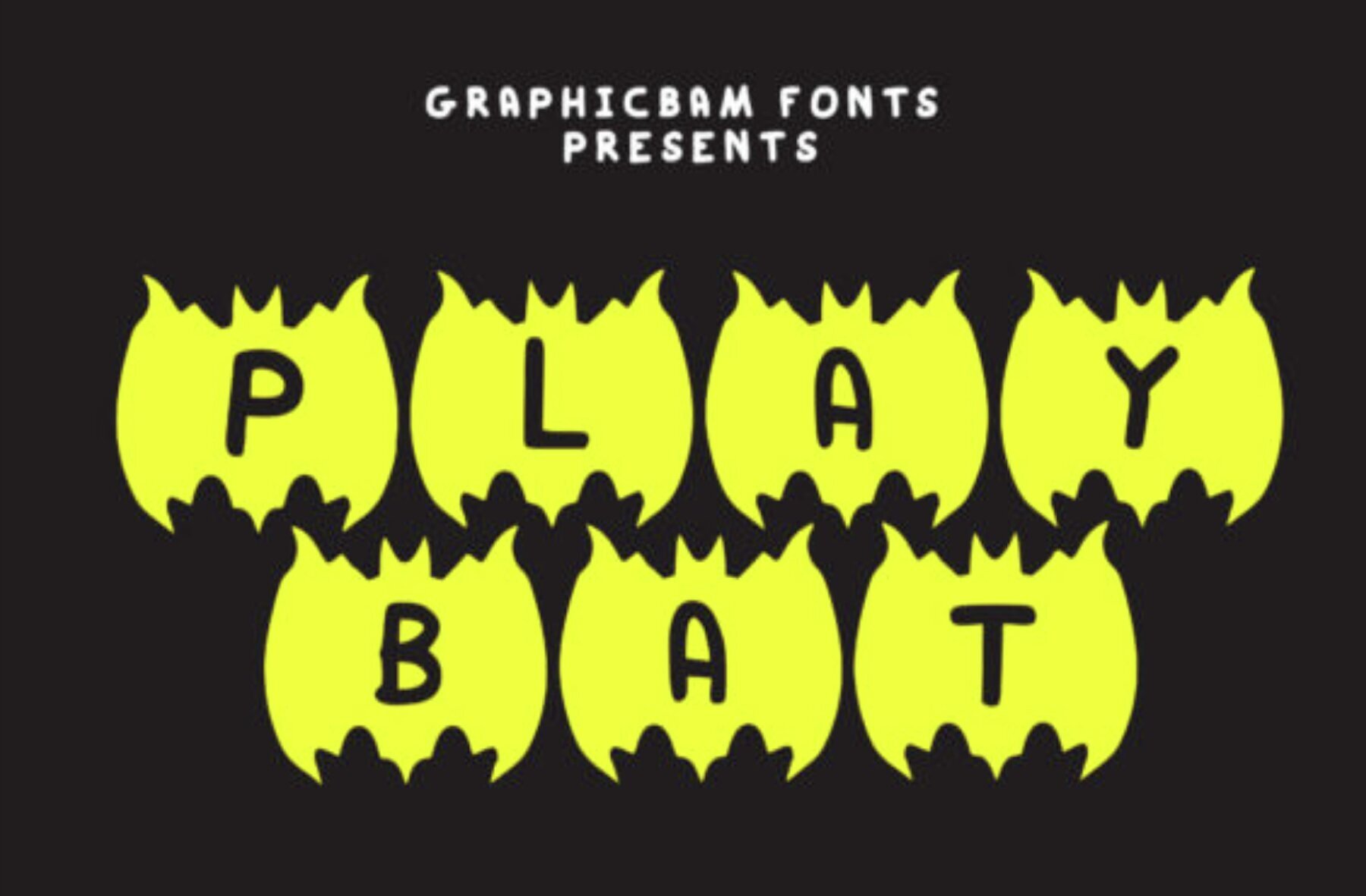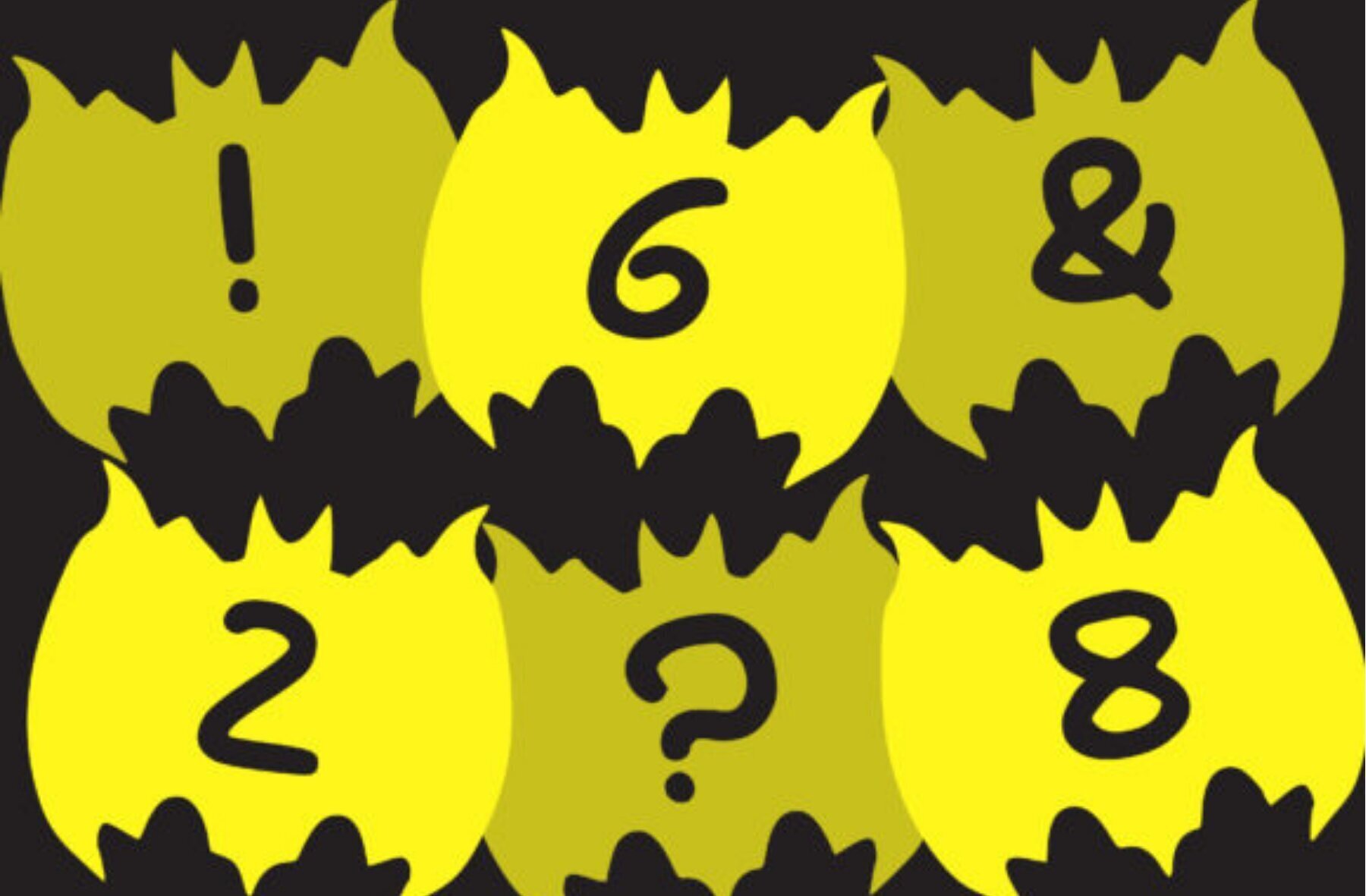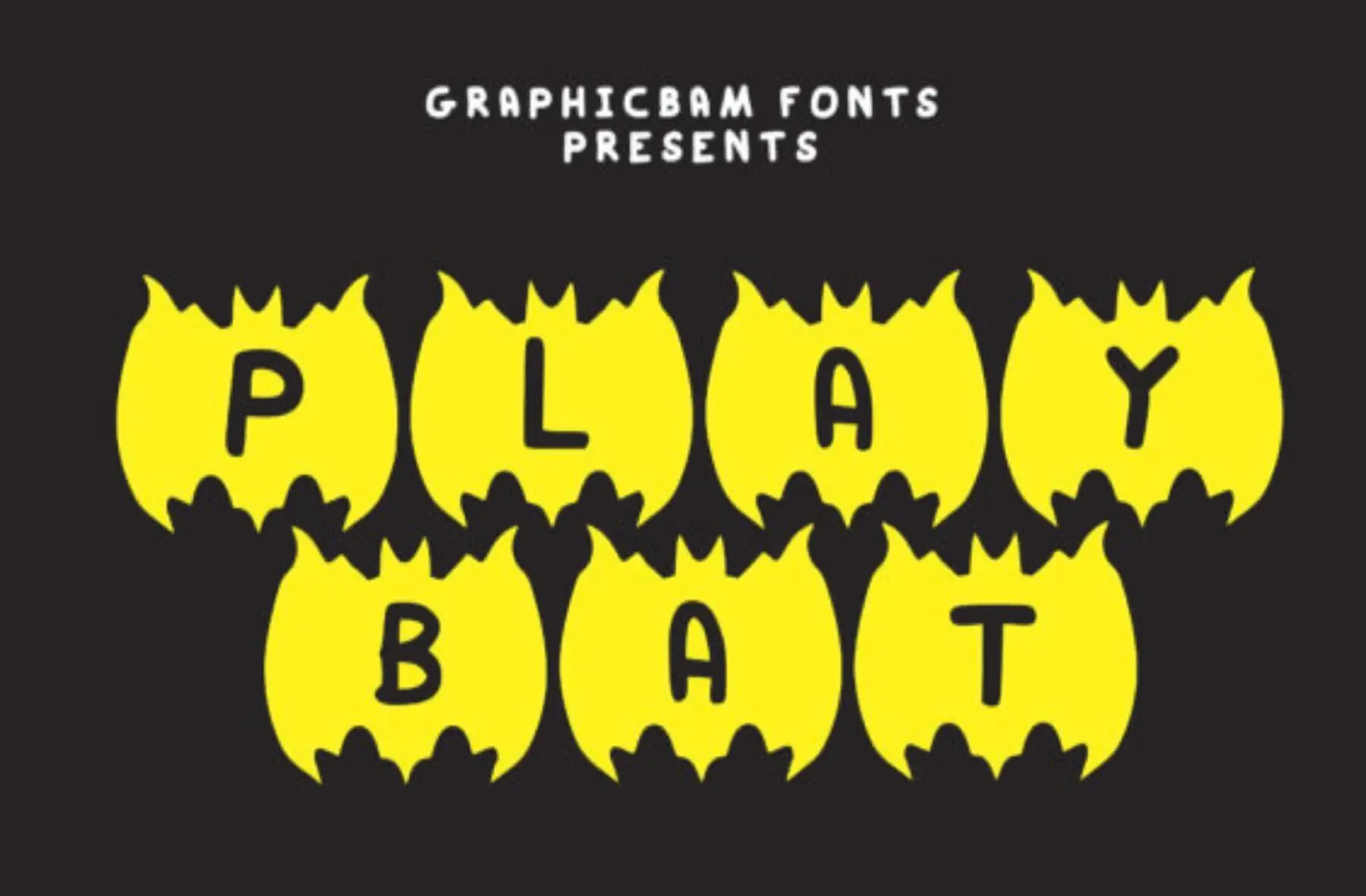
Play Bat Font
Play Bat Regular
Meet Play Bat, a fascinating decorative font that injects a playful vibe into your projects with a bat integrated into each character. This intriguing design blends creativity and functionality, making it a standout choice for designers looking to add a quirky touch to their work. Whether you're designing for Halloween-themed events or seeking a distinctive flair for everyday projects, Play Bat seamlessly adapts to any topic. Its whimsical aesthetic makes it a valuable addition to any font collection, offering new dimensions to your creative projects.Play Bat Font: Add a Unique Twist to Your Designs